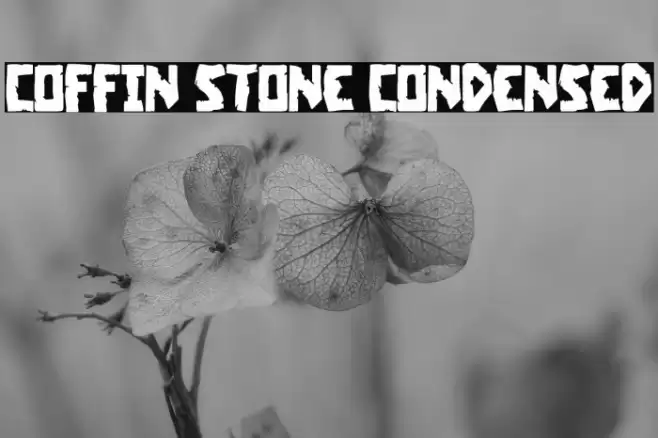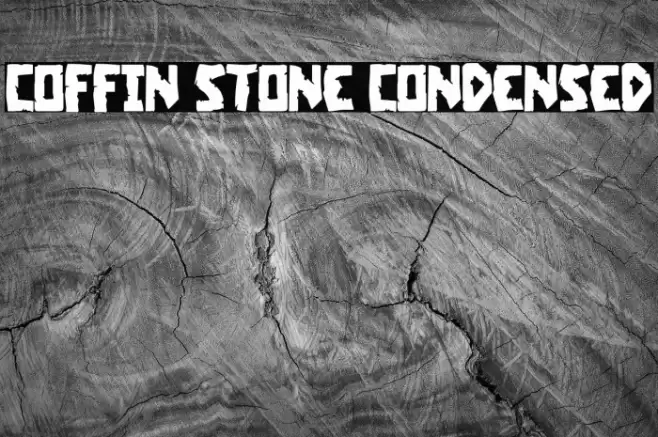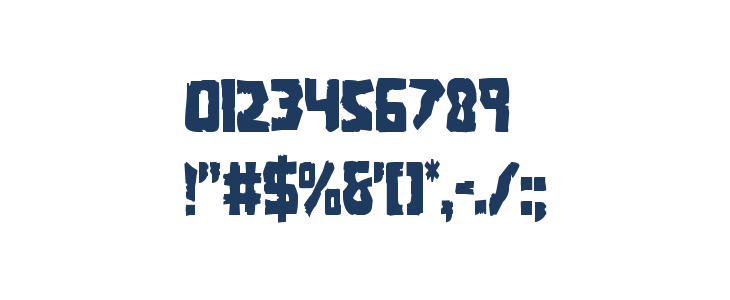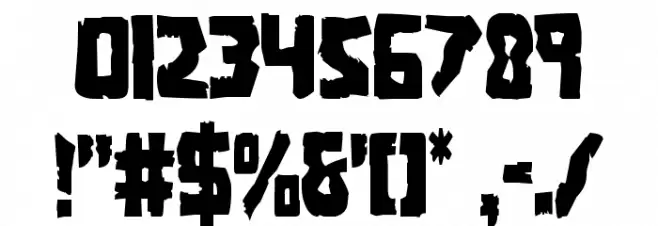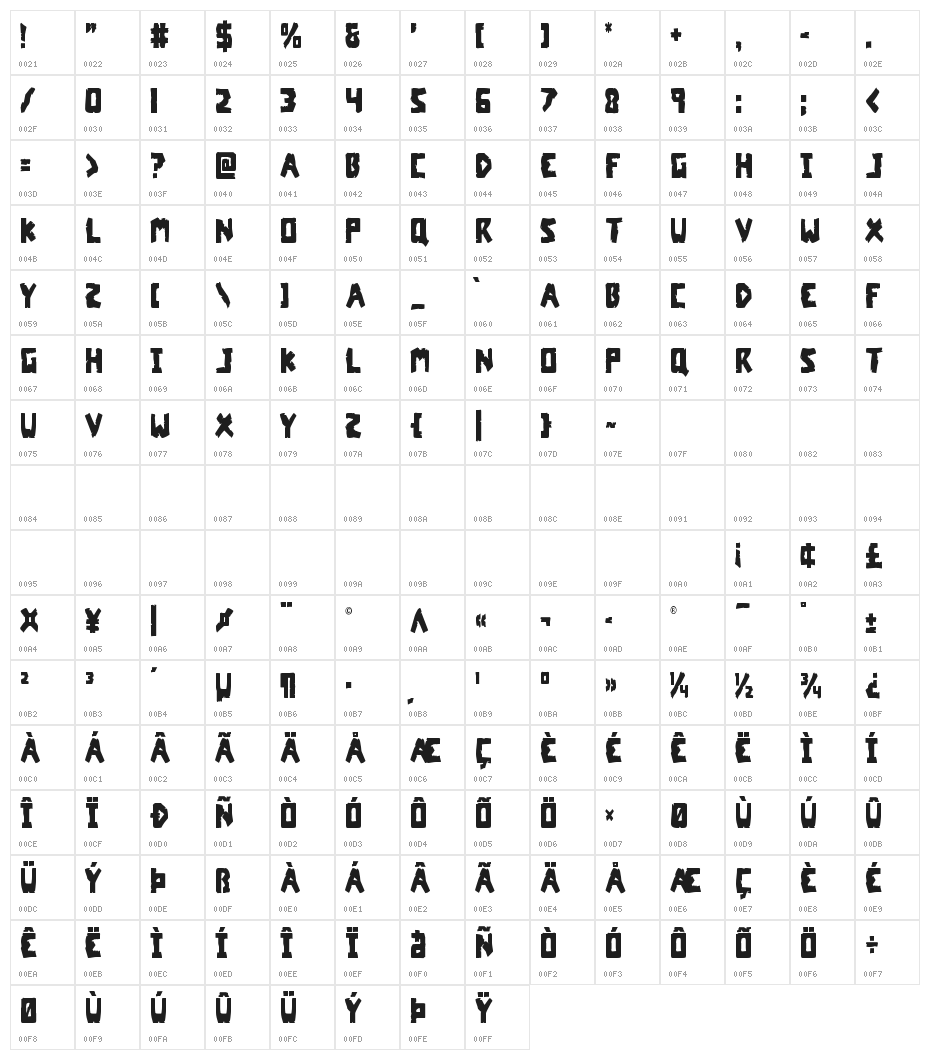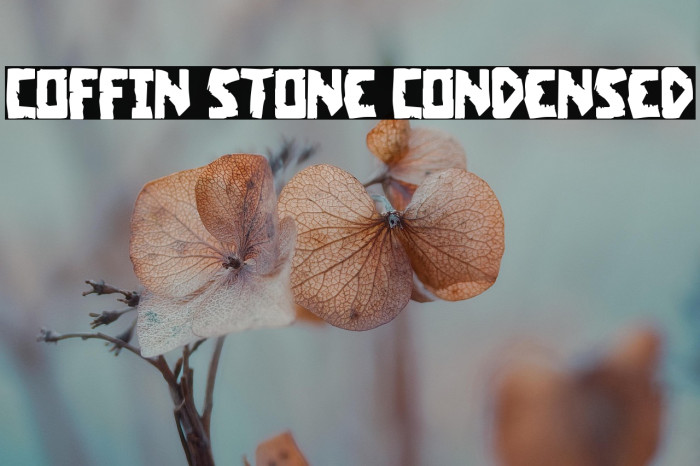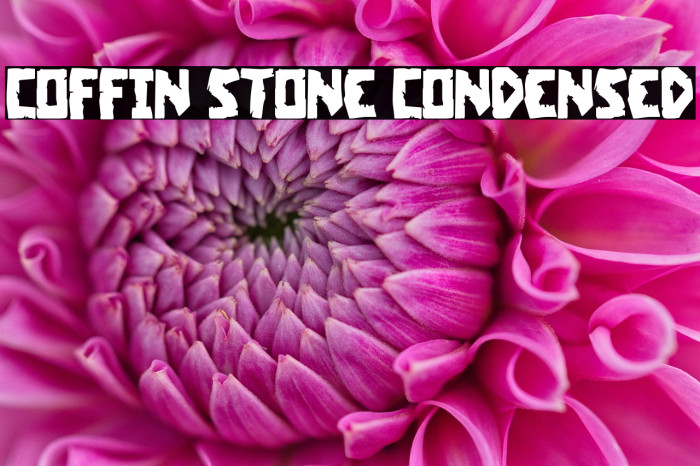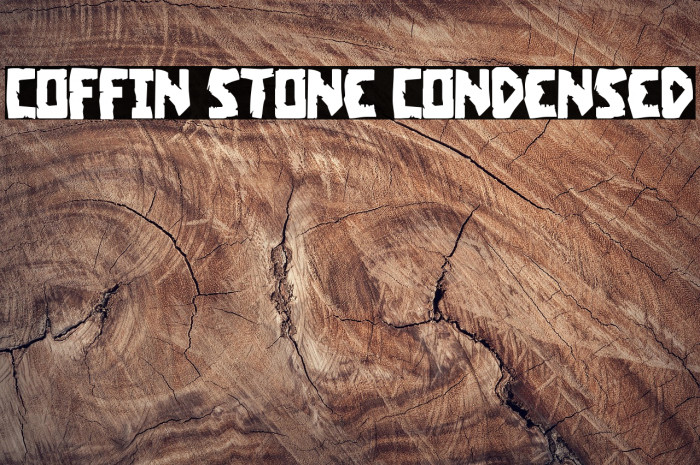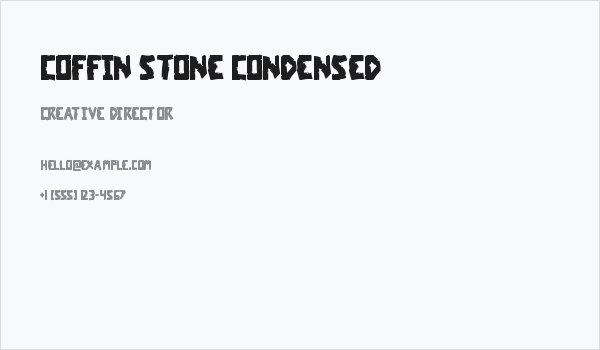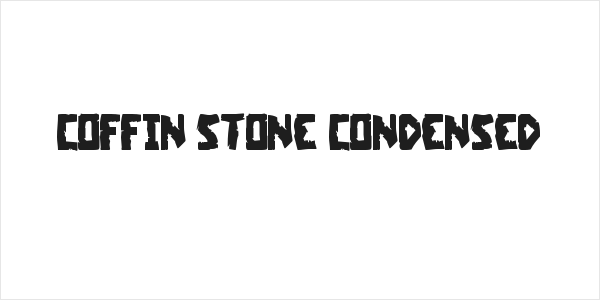
Coffin Stone Condensed Font
Coffin Stone Condensed Description
This font features a bold and rugged design with a distressed, stone-like texture. The characters are blocky and condensed, giving a strong and impactful appearance. The edges are rough and uneven, adding to the font's gritty and raw aesthetic. It maintains a consistent weight throughout, with a heavy emphasis on vertical and horizontal strokes. The numerals and special characters follow the same stylistic approach, ensuring uniformity across all glyphs. This font is ideal for projects that require a bold statement or a touch of edginess.
A bold, rugged, and condensed font with a distressed, stone-like texture from Uncategorized fonts.
- Proposed Projects: Perfect for posters, album covers, video game titles, and any design needing a bold, edgy look.
- Character Spacing: Tight